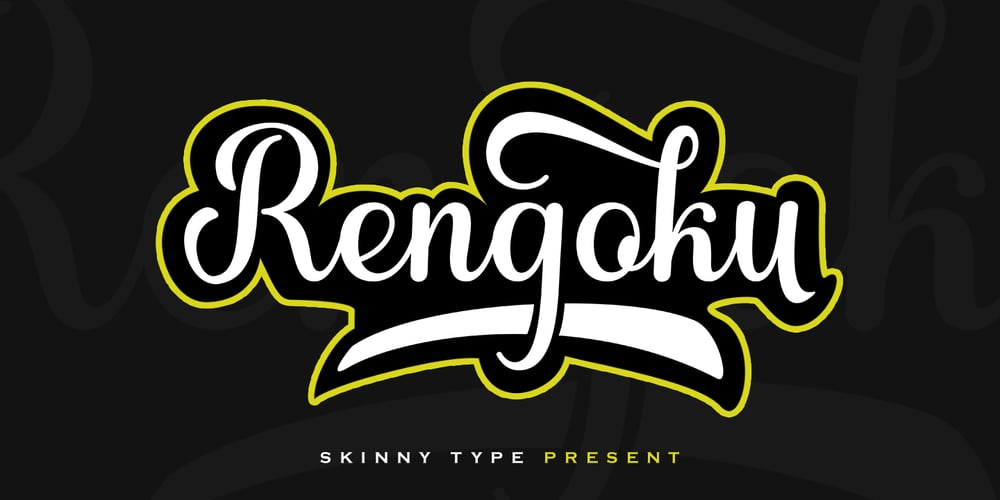
Rengoku Font Family was designed by Muhajir and published by Skinny Type. Rengoku contains 2 styles and family package options. Rengoku is a bold script font with smooth curves is great for Branding, Logo Design, Lettering, Logotype, Clothing, Poster, magazine, packaging, posters, shopping bags, t-shirts, book covers, photography, special events and other design projects.Features :- Uppercase & Lowercase- Numerals- Punctuations (OpenType Standard)- Accents (Multilingual characters)- Ligatures and Alternate- Works on PC & Mac- Underline swashes- Simple installations- Accessible in the Adobe Illustrator, Adobe Photoshop, Adobe InDesign, even works on Microsoft Word.How to access alternate glyphs? you can see it on this link ( http://goo.gl/1vy2fv )I hope you enjoy this font. If you have any questions please don’t hesitate to drop me a feedback 🙂